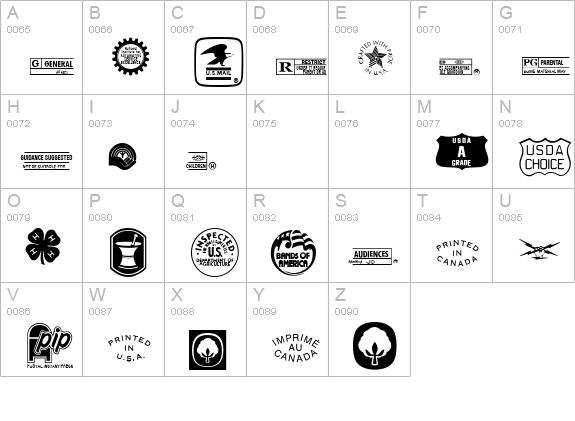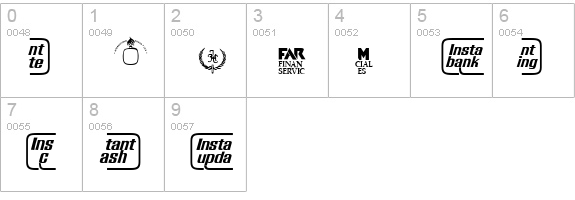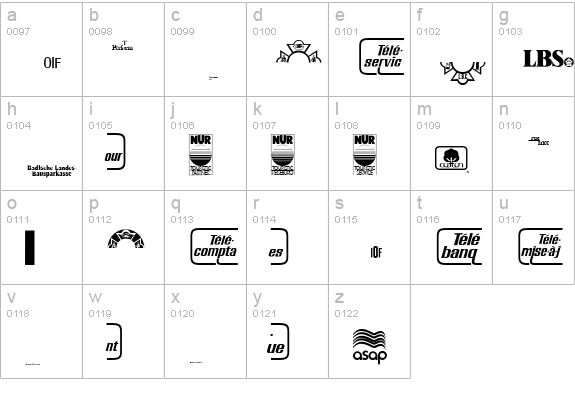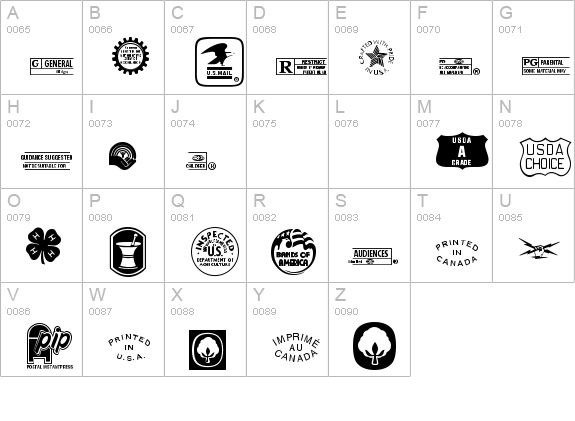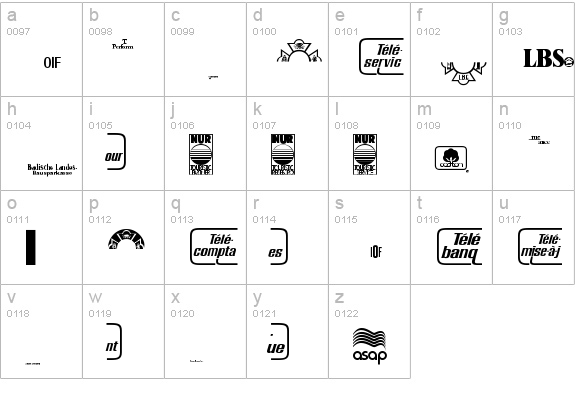
LogosServiceP03 Font Details
LogosServiceP03 font is a modern and stylish typeface that exudes elegance and sophistication. With its clean lines and sleek design, this font is perfect for adding a touch of class to any project. Whether you're creating a logo, designing a website, or crafting marketing materials, LogosServiceP03 font will help you stand out from the crowd. The best part? LogosServiceP03 font is available for free download at FontsMarket.com. This means you can easily access this high-quality font without breaking the bank. So go ahead and elevate your designs with LogosServiceP03 font today!